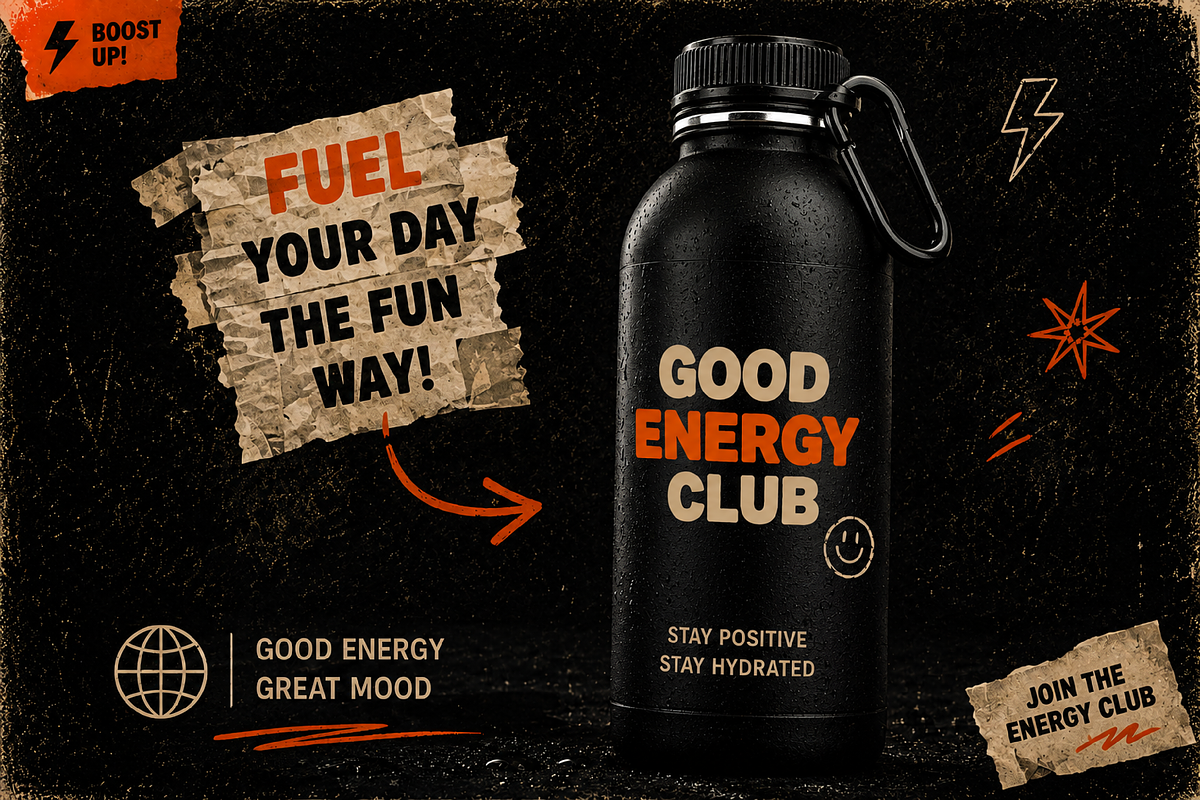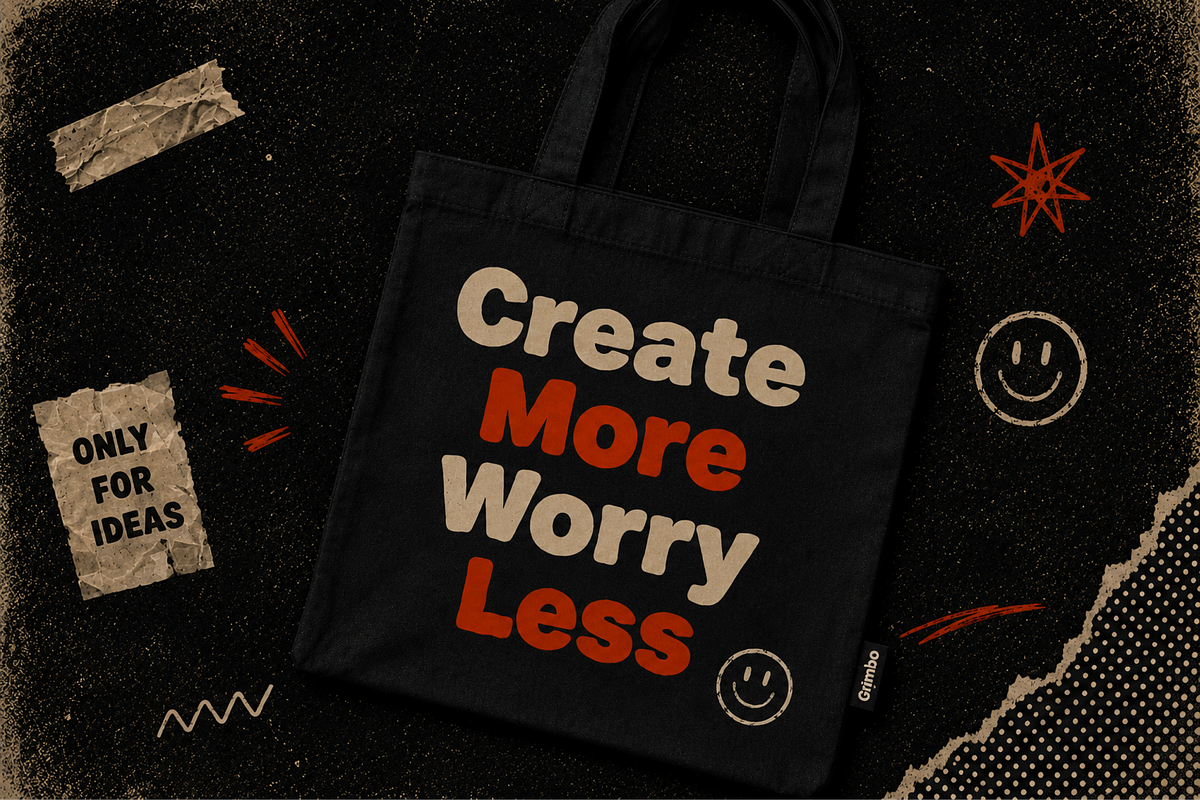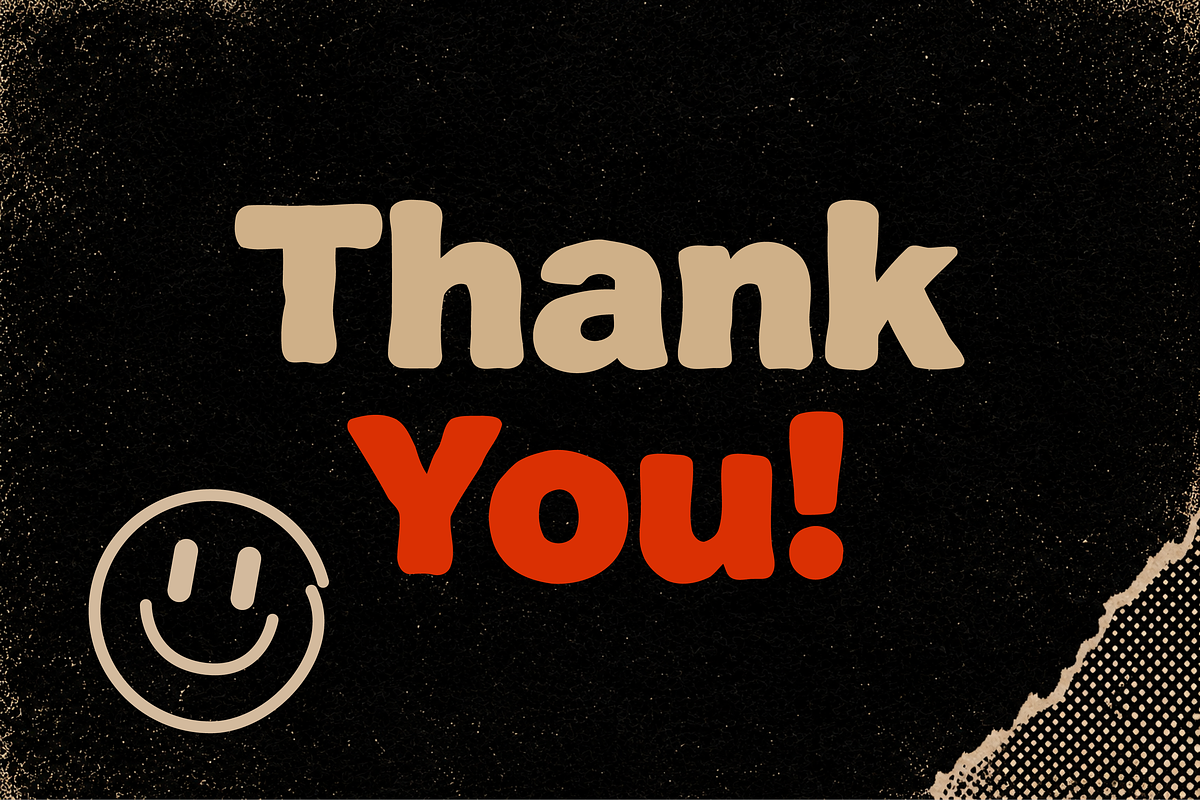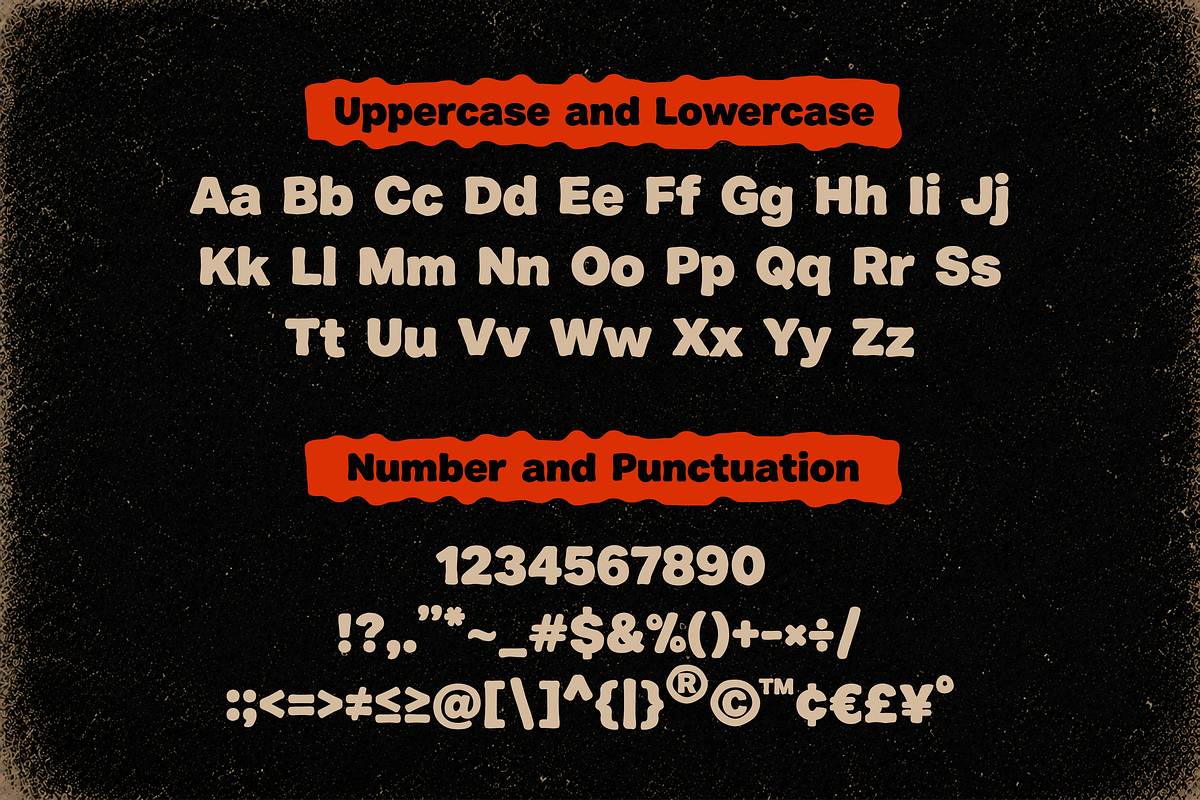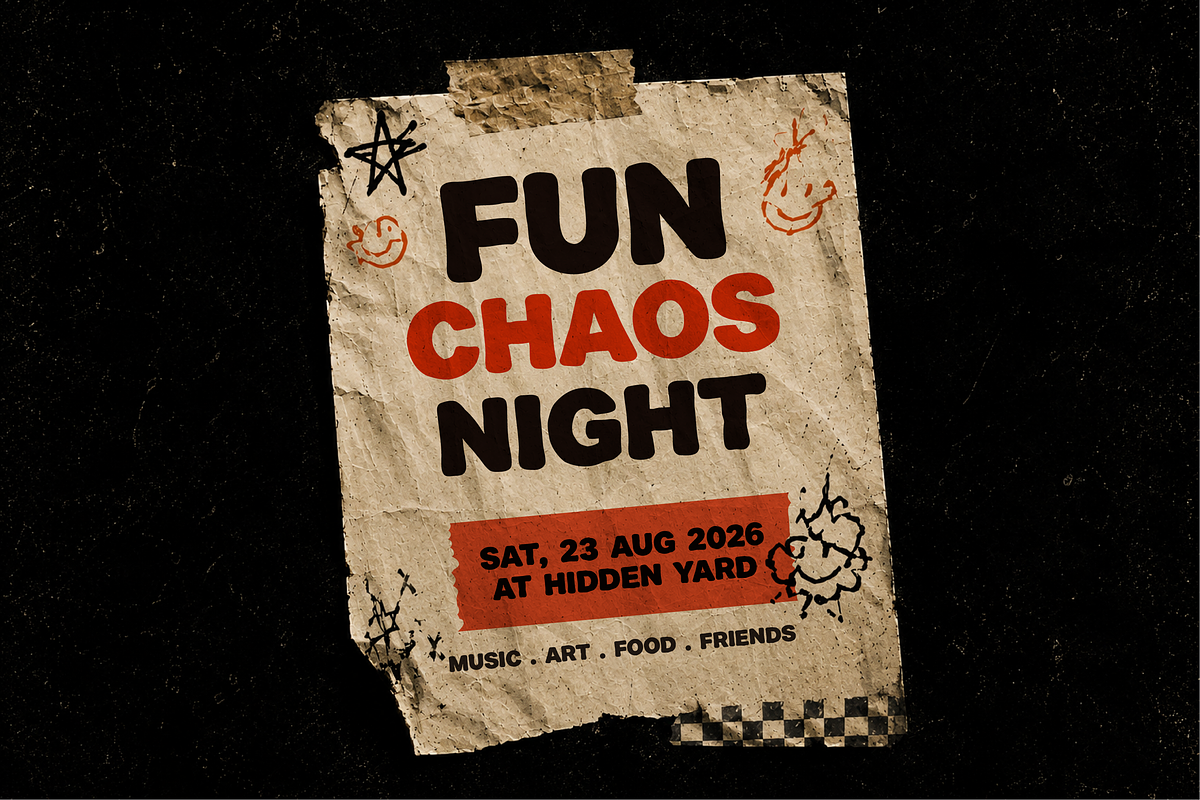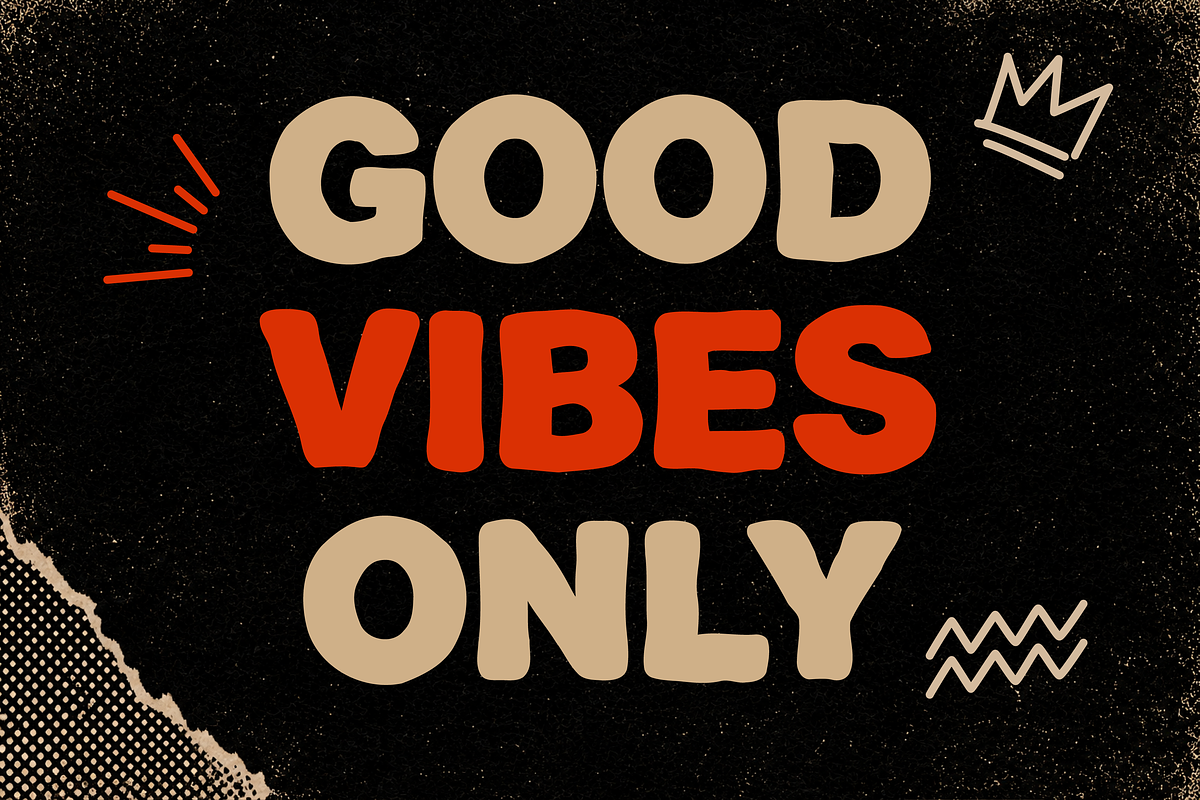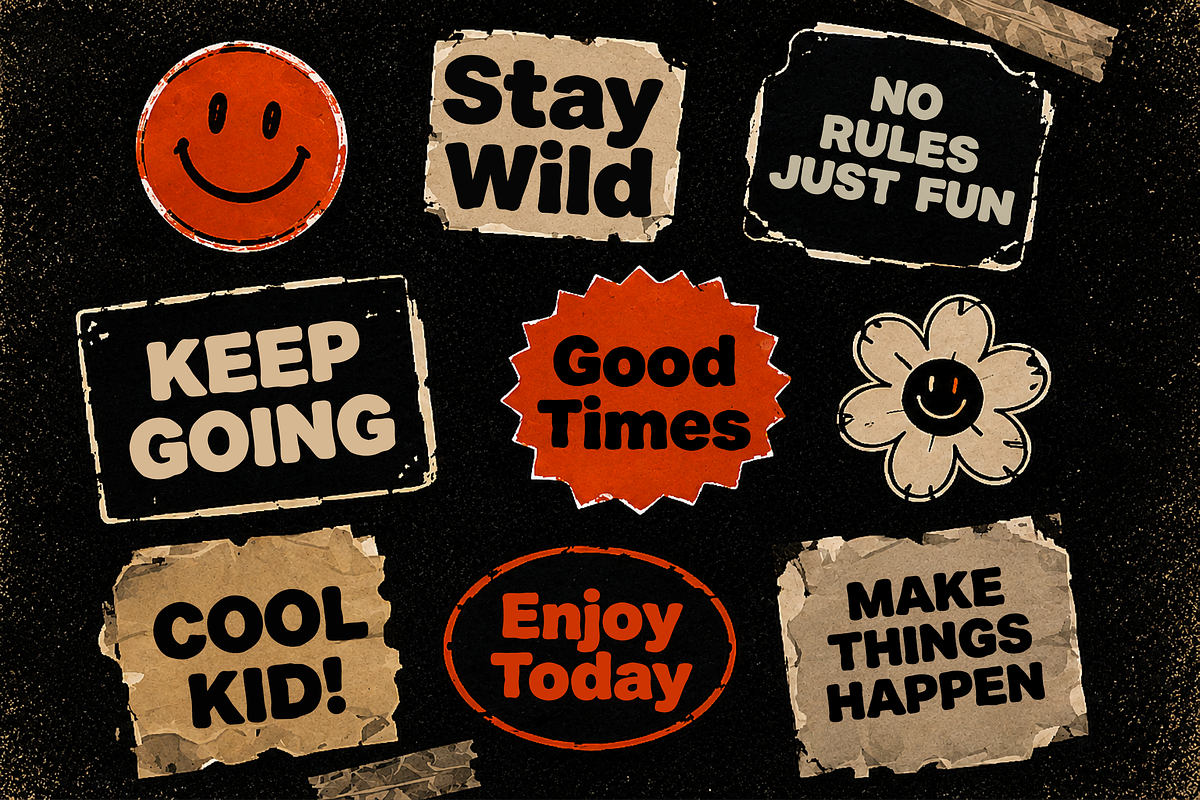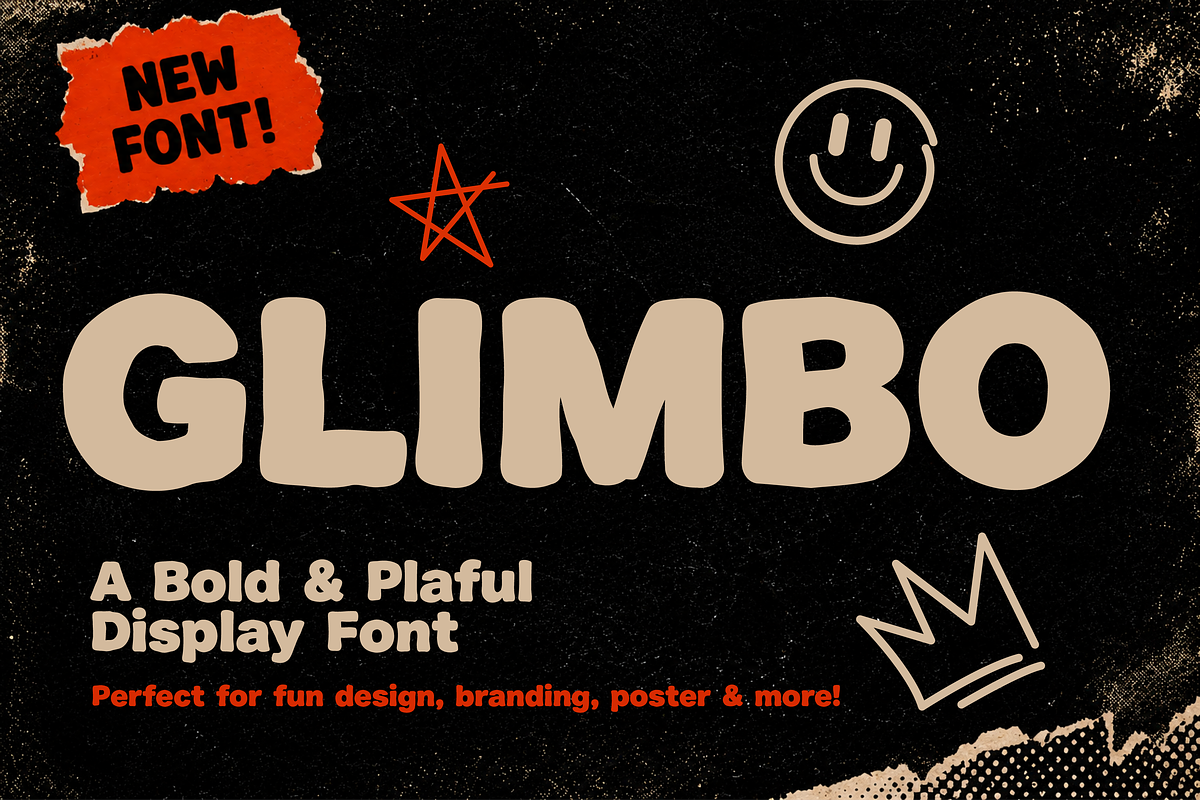
Glimbo - Bold Playful Display Font
Glimbo is a bold playful display font with a fun retro personality and chunky letterforms. Its thick curves and quirky shapes create a strong visual impact that makes every design feel energetic, friendly, and eye-catching.
Perfect for posters, branding, packaging, social media, kids projects, merchandise, logos, stickers, and creative headlines, Glimbo delivers a cheerful and modern vintage vibe that instantly grabs attention.
Whether you want a funky street-style look or a playful retro atmosphere, Glimbo brings bold character and expressive charm into your typography projects.